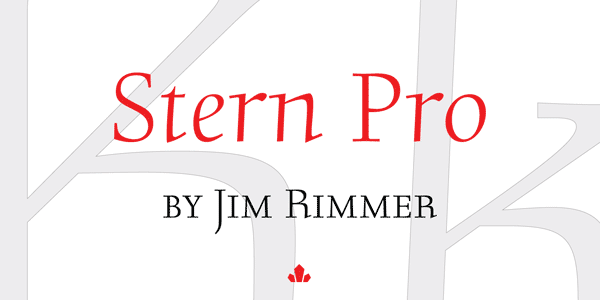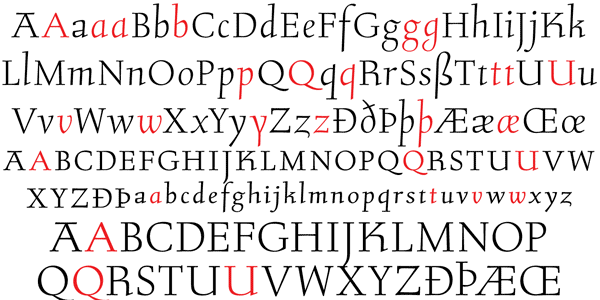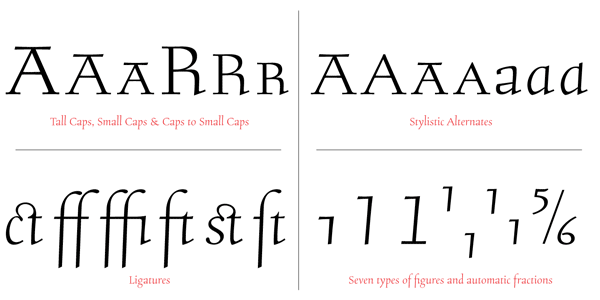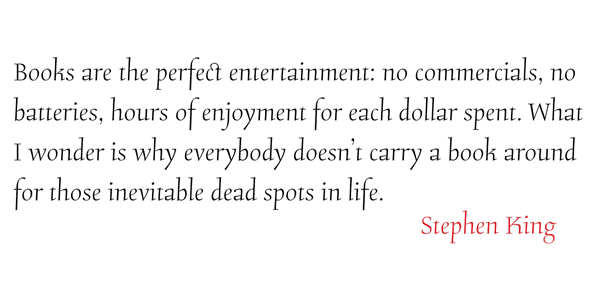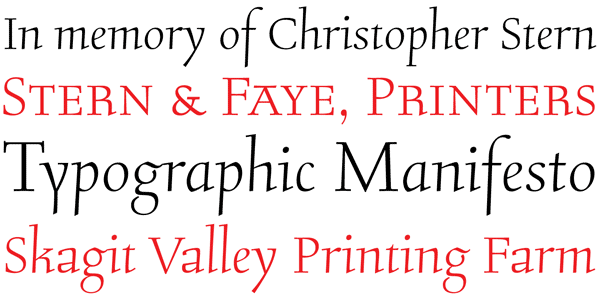
Stern Pro Typeface.
The Stern Pro font was originally released in 2008. It’s the last typeface Jim Rimmer ever completed. The name is a tribute to the artist and printer Chris Stern. The upright italic typeface looks strikingly in any print and web project. Font foundry Canada Type remastered and expanded the Stern typeface in 2013. Now Stern Pro comes with lots of OpenType features such as ligatures, small caps, tall caps, historical forms, automatic fractions, alternate letters, and much more. Stern Pro also supports Greek and over 50 Latin languages.